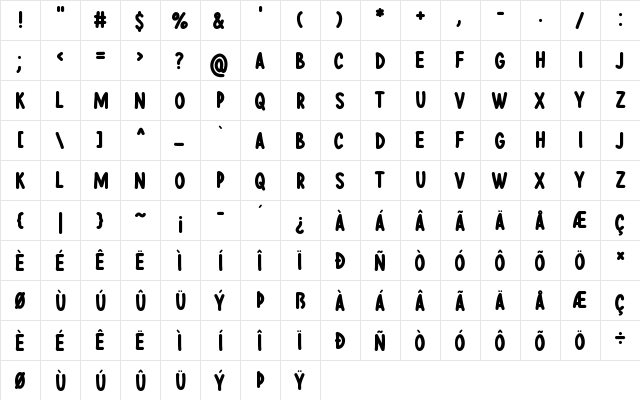
Thrive Xmas Regular
Design Context for Thrive Xmas Typeface
Thrive Xmas offers clean, dependable letterforms without strong stylistic allegiance, making it a practical choice for designers who need flexibility.